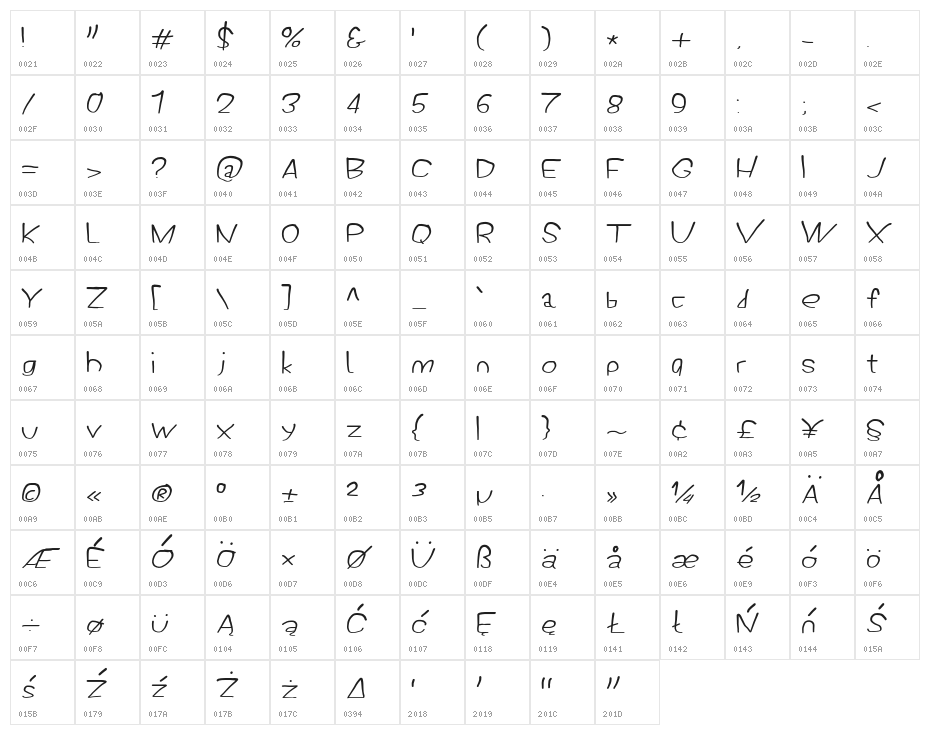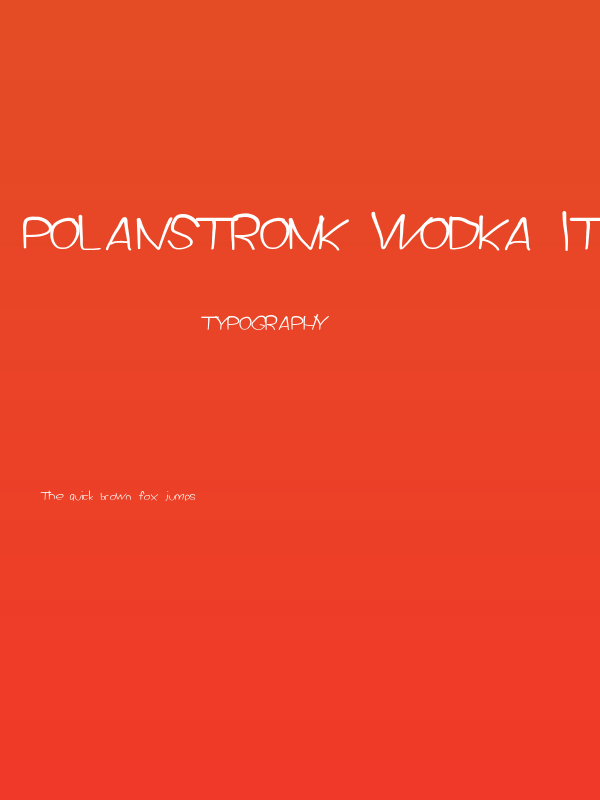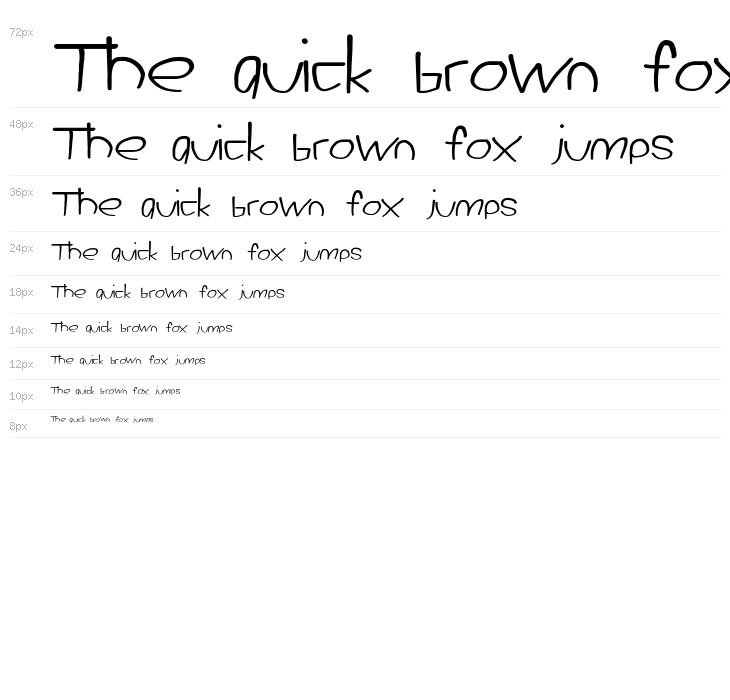
PolanStronk Wodka Italic Font
PolanStronk Wodka Italic Description
This font exhibits a playful and dynamic handwritten style, characterized by its fluid and slightly irregular strokes that mimic the natural flow of handwriting. The letters are slightly slanted, enhancing the casual and informal feel of the typeface. Each character is distinct, with unique curves and angles that add personality and charm. The uppercase letters maintain a consistent height, while the lowercase letters vary slightly, adding to the organic appearance. The numerals are clear and legible, matching the overall style of the alphabet. Special characters are creatively designed, maintaining the whimsical and lively essence of the font.